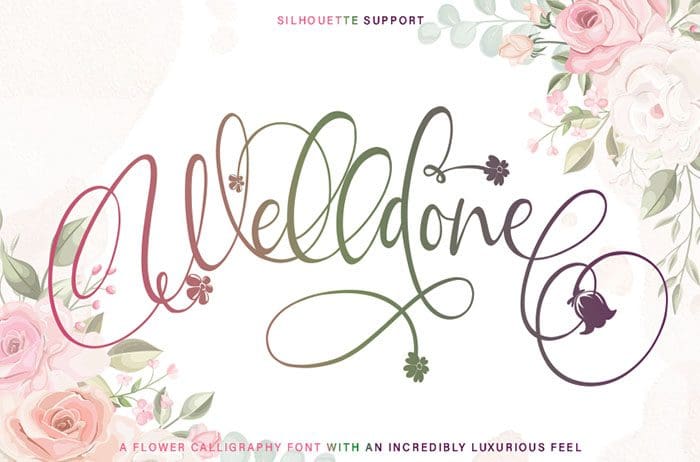
Free Welldone Script Font
Welldone Script Font
Free Welldone script font is a flower-themed calligraphy font with an incredibly luxurious feel. Get inspired by its whimsical charm! Designed this font by Thomas Aradea. You can also search more freeĀ Script Fonts.